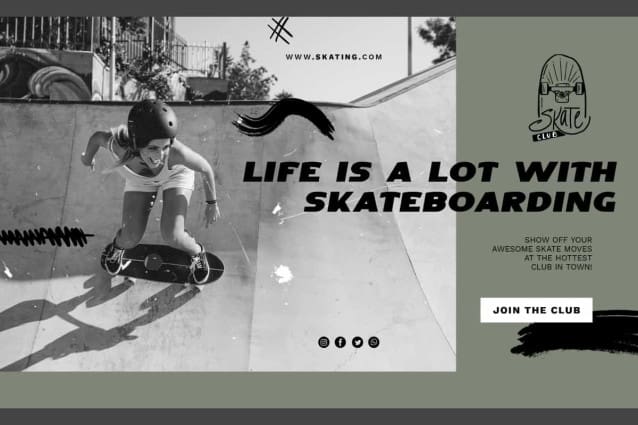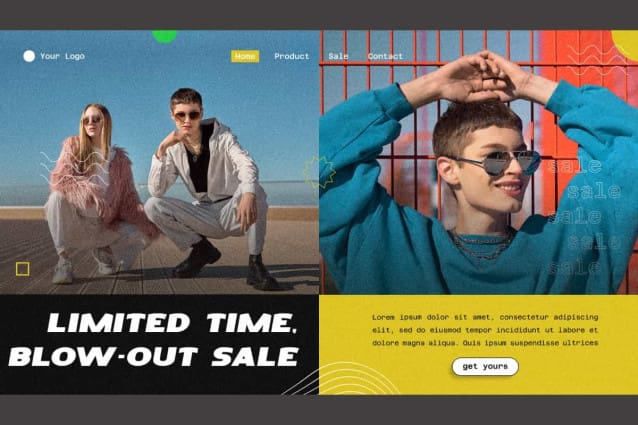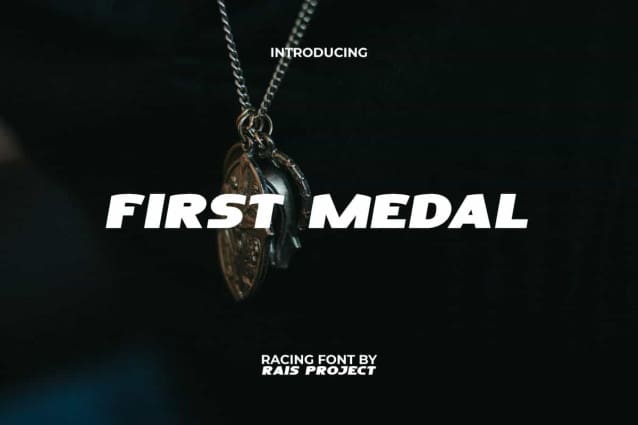
First Medal Font
First Medal Font is a basic stylish display racing font, created by RaisProject. This font has bold and curve letter characters so it can make your design stand out. It will be good for any designs, such as advertisement, brand image, custom design, invitation, label, marketing material, poster, product packaging, quotes, signage, website page, and more!
First Medal Font includes a full set of ALL CAPS for Uppercase and Lowercase Letters, Numerals, and large range of Punctuation. This modern font with a racing vibe will be suitable for various industries, such as automotive, barber shop, cafes, event or festival, fashion, game, photography, printing, publishing, sports, etc.